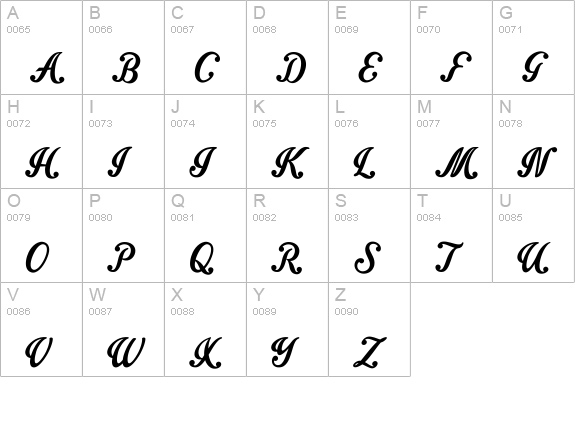
Intrique Script Personal Use font is a stunning and elegant typeface that will add a touch of sophistication to any project. This script font features beautifully flowing lines and intricate details that exude a sense of luxury and refinement. Perfect for wedding invitations, branding, logos, and more, Intrique Script Personal Use font will make your designs stand out from the crowd. Its delicate curves and graceful letterforms create a sense of timeless beauty, making it a versatile choice for any creative endeavor. What sets Intrique Script Personal Use font apart is not only its exceptional design but also its accessibility. This font is available for free download at FontsMarket.com, making it easily accessible to designers, artists, and enthusiasts alike. Whether you're a professional designer or someone looking to add a personal touch to their creations, this font is the ideal choice. With its extensive character set, Intrique Script Personal Use font supports multiple languages, allowing you to express your creativity in various contexts. Its smooth, flowing strokes and legible letterforms ensure that your message is conveyed with clarity and elegance. Don't miss out on the opportunity to elevate your designs with Intrique Script Personal Use font. Download it for free at FontsMarket.com and unlock a world of possibilities for your creative endeavors. Whether you're creating a wedding invitation, a logo, or a branding project, this font will bring a touch of sophistication and class to your work.